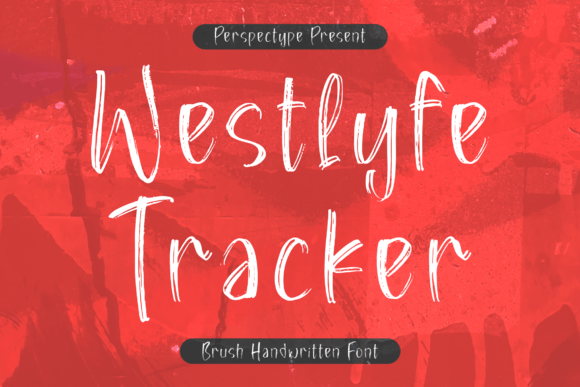
Unleash the Charm of Westlyfe Tracker Font: A Timeless and Elegant Script for Your Creative Endeavors
In the realm of visual artistry and design, the allure of a captivating font cannot be overstated. Meet Westlyfe Tracker Font, a script font born from the fusion of grace and elegance, ready to elevate your creative projects to dizzying heights.
Westlyfe Tracker Font: A Stroke of Beauty for Your Fashion Logo
Fashion, like art, is an expression of individuality, a canvas upon which we paint our unique styles and aspirations. Westlyfe Tracker Font, with its sweeping curves and delicate strokes, embodies the essence of fashion, lending an air of sophistication and allure to your logo designs. Imagine your brand name adorning a sleek shopping bag, a chic t-shirt, or an eye-catching poster, all rendered in the captivating Westlyfe Tracker script. Let your logo dance with elegance, leaving an indelible mark on the minds of your customers.
A Multifaceted Gem for Diverse Creative Ventures
The versatility of Westlyfe Tracker Font extends far beyond fashion logos. Its charm shines through in a myriad of creative projects, from homeware designs and product packaging to mugs and posters. With Westlyfe Tracker as your font of choice, your homeware designs will exude a timeless charm, while your product packaging will capture attention with its understated elegance. Quotes and posters adorned with Westlyfe Tracker's graceful strokes will add a touch of inspiration to any space.
Unleash Your Inner Artist with Westlyfe Tracker Font
Whether you're a seasoned designer or just starting your creative journey, Westlyfe Tracker Font is your perfect companion. Its user-friendly nature makes it accessible to all skill levels, inviting you to explore your creativity without boundaries. Create stunning book covers that captivate readers, design elegant name cards that leave a lasting impression, or craft heartfelt invitation cards that set the tone for unforgettable occasions.
Immerse Yourself in a World of Creative Possibilities
With Westlyfe Tracker Font, the possibilities are limitless. Let your imagination soar as you create shopping bags that reflect your unique style, t-shirts that make a statement, or labels that add a touch of sophistication to your products. Photography, watermarks, special events – every creative endeavor deserves the elegance and grace that Westlyfe Tracker Font brings.
Step into the world of Westlyfe Tracker Font and embark on a creative odyssey where beauty and functionality intertwine. Its timeless aesthetic and versatility will transform your projects into masterpieces, leaving a lasting impression on your audience.